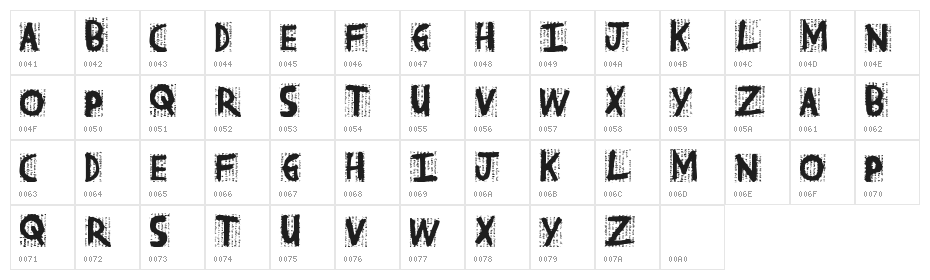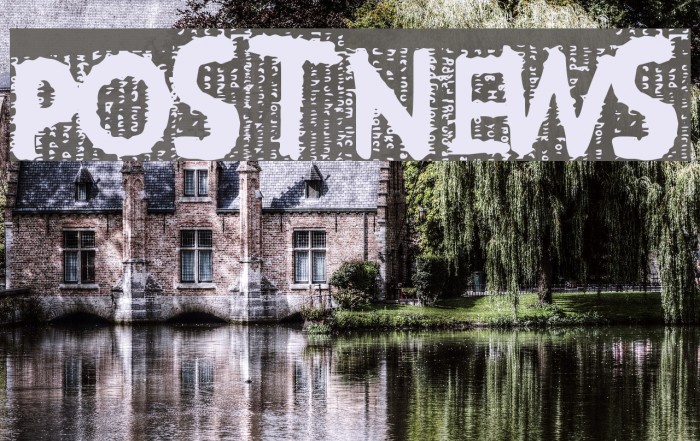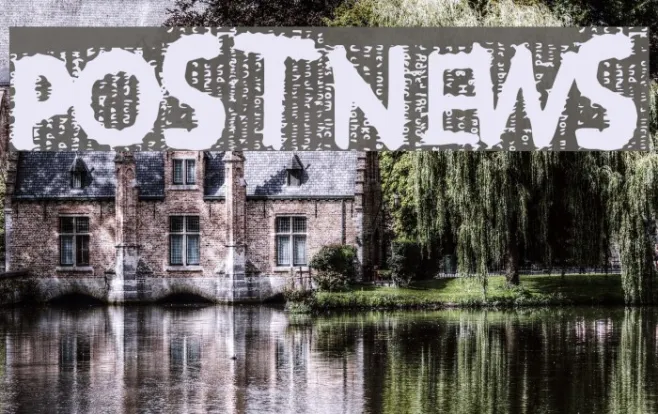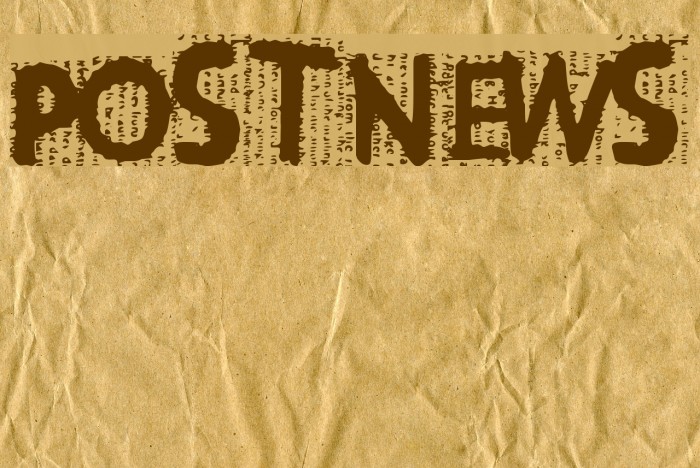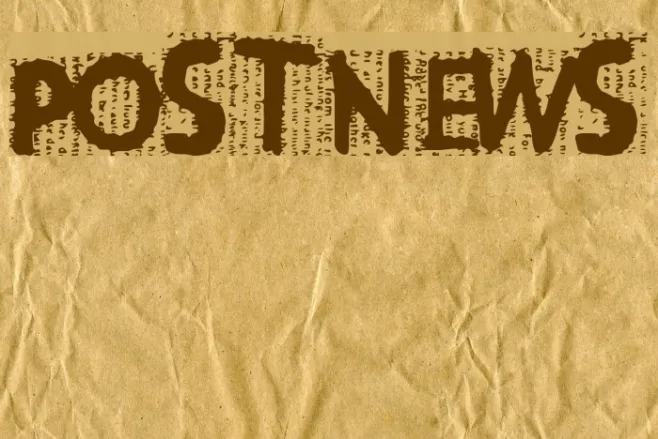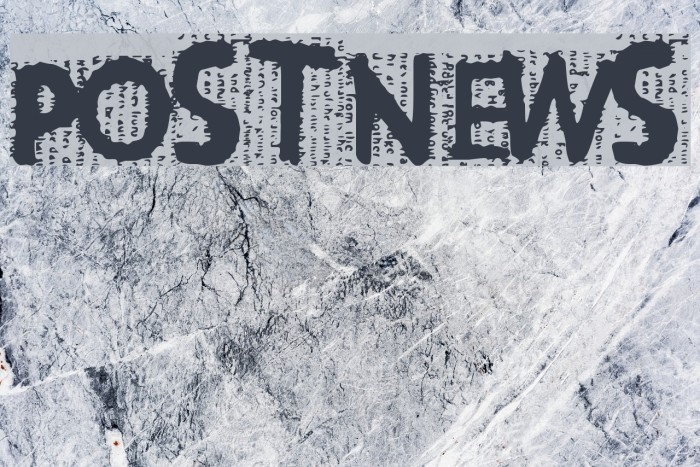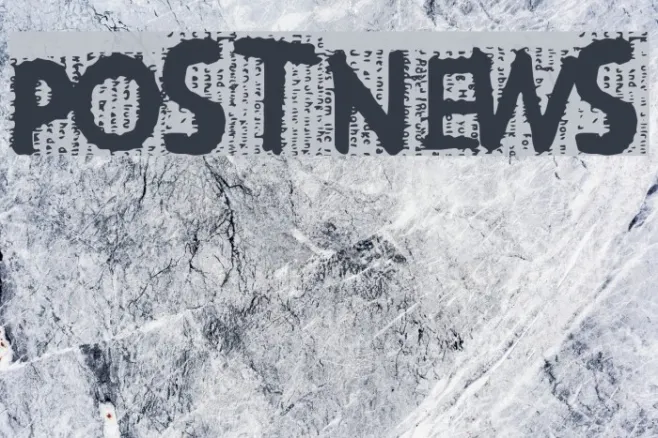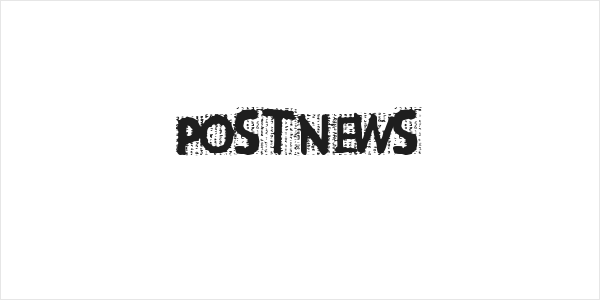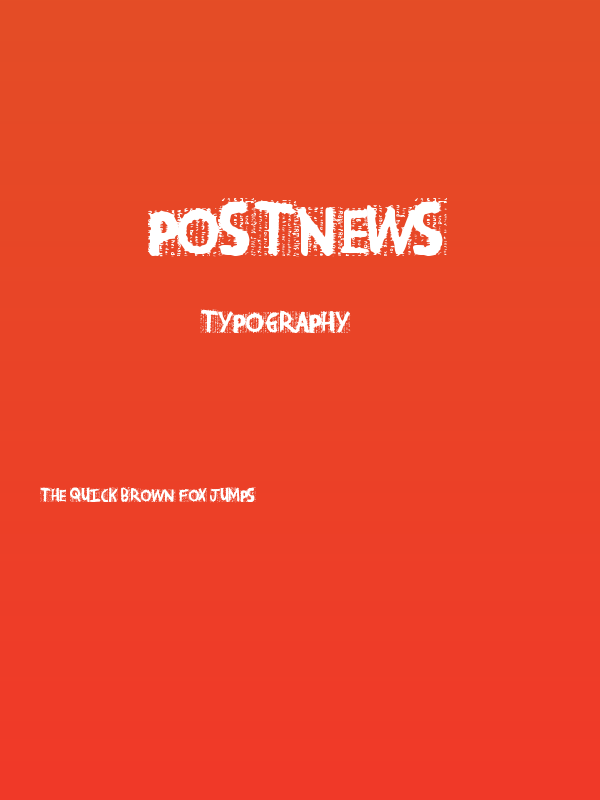
PostNews Font
PostNews Description
This font features a bold and distressed style, with a hand-drawn appearance that gives it a rugged and edgy look. The characters are unevenly weighted, with a rough texture that suggests a grunge or urban aesthetic. The uppercase letters are prominent and impactful, while the lowercase letters maintain the same distressed quality. The font's unique style makes it stand out, with a playful yet rebellious vibe. The characters are slightly irregular, adding to the handcrafted feel, and the overall design is both eye-catching and dynamic.
| Overall Style | Grunge, Urban, Edgy |
| Use Case | Logos, Posters, Headlines |
| Proposed Projects | Ideal for music album covers, streetwear branding, posters, and edgy graphic design projects. |